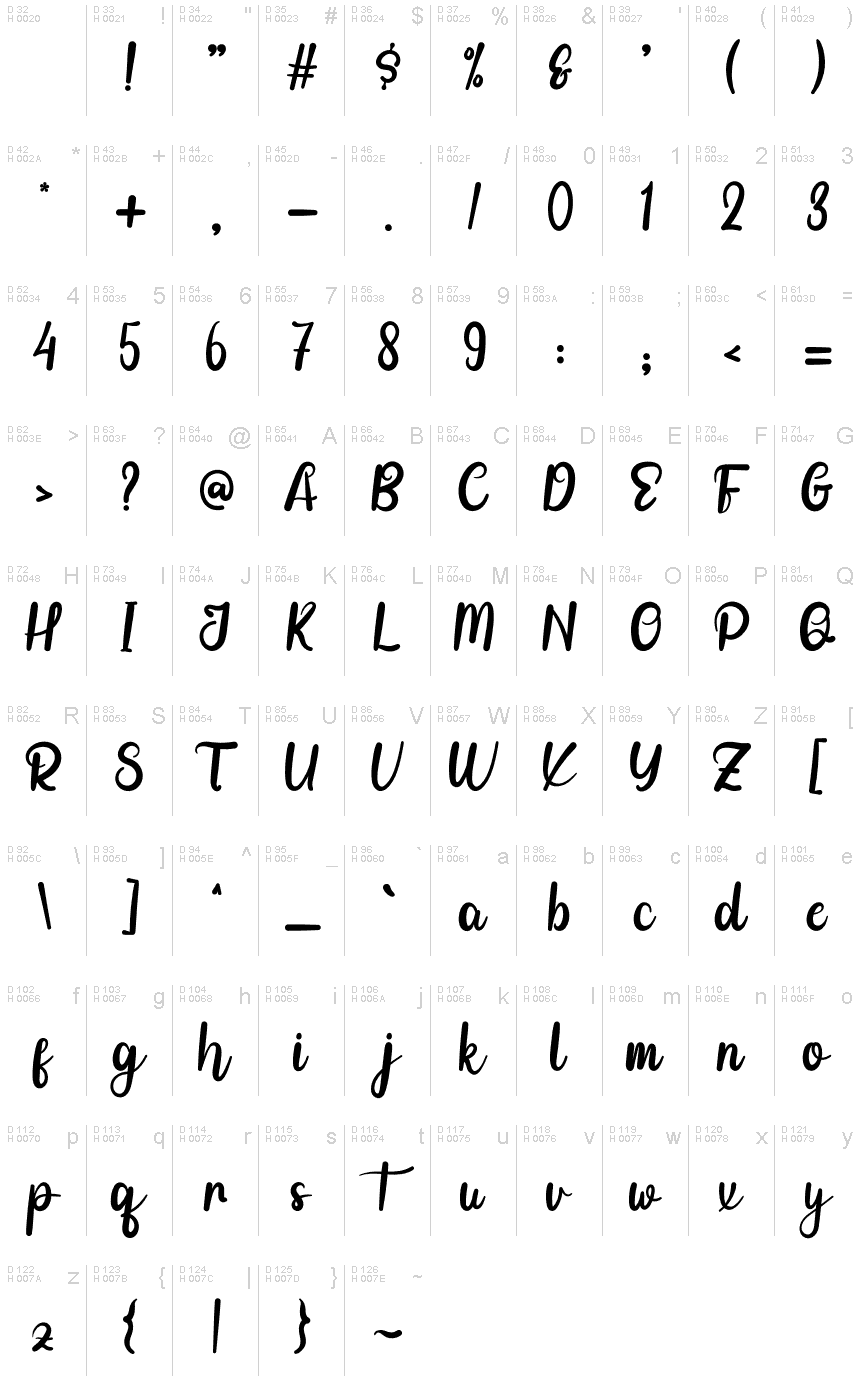
Mandala Birthday
Introducing Mandala Birthday, the most vibrant brush font designed by Inermedia Studio. The light weight gives it a carefree and playful feel that's perfect for adding a unique touch to creative projects like greeting cards, party invitations, and logos. Its bouncy lines will make your designs stand out with a whimsical style that's sure to delight everyone who sees it.